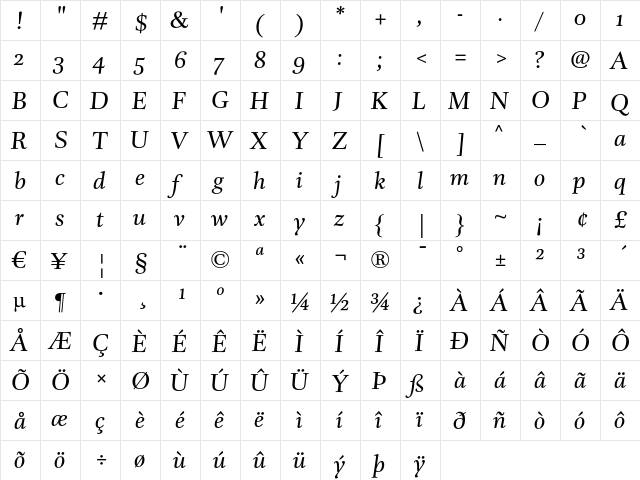
DTL Unico ST Italic
Design Context for DTL Unico Typeface
DTL Unico is a composed and adaptable typeface that performs quietly and consistently across a wide range of design contexts. The slanted form adds forward momentum and visual energy.
Pro Tip: Try DTL Unico for annotation and caption copy alongside an upright companion — the contrast in angle creates a dynamic but ordered typographic system.